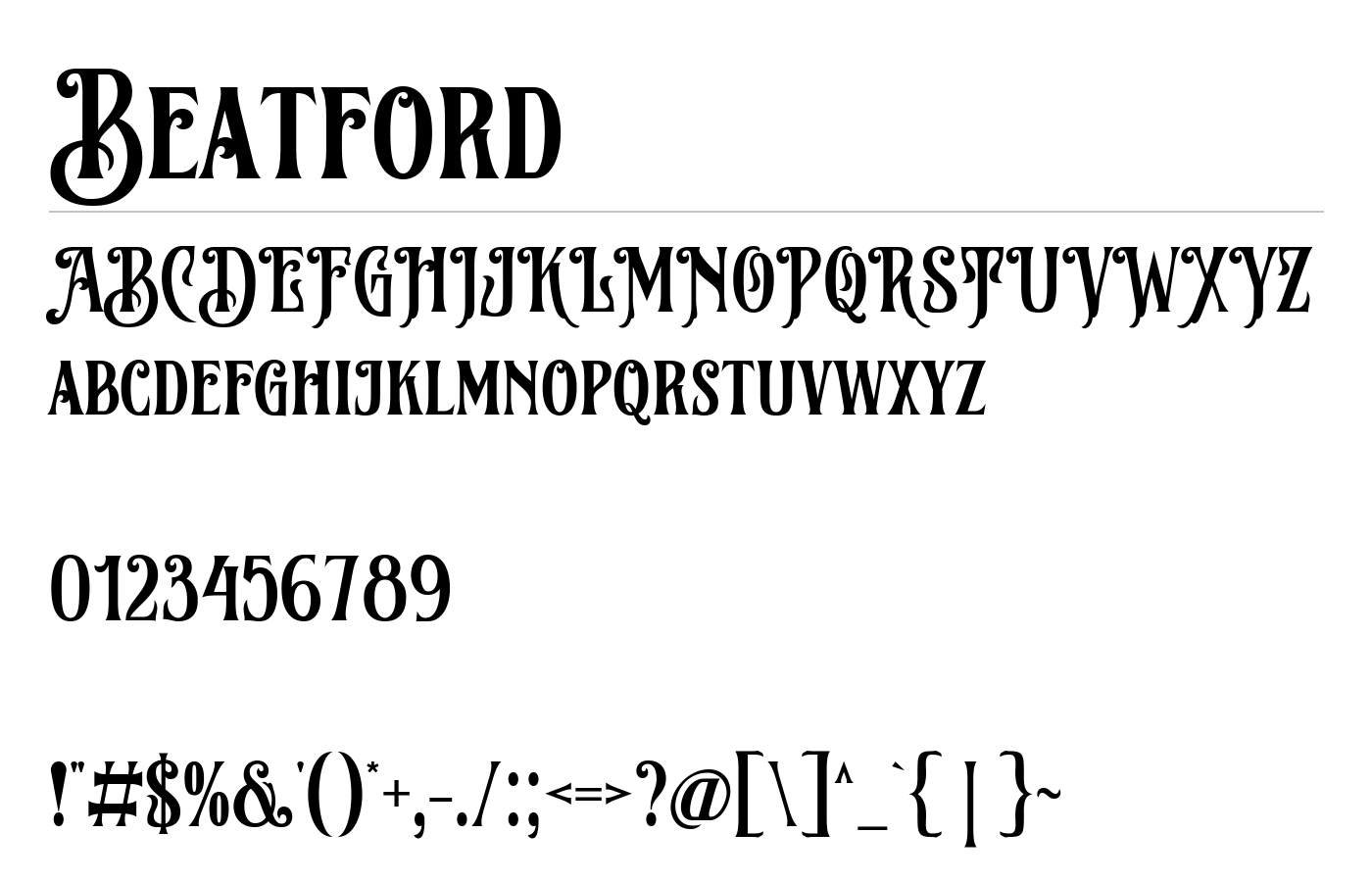
Beatford is a bold serif display font with a vintage, ornamental style characterized by strong vertical strokes and whimsical curls on select letters, giving it a distinctive, elegant flair. Its high contrast and tightly spaced letterforms make it perfect for eye-catching headlines, logos, and branding that seeks to evoke a classic yet playful personality. This font works especially well in fashion, luxury, and editorial designs where a blend of boldness and decorative charm is desired.
Beatford Font
About Beatford Font
| Designer | Burhan Afif |